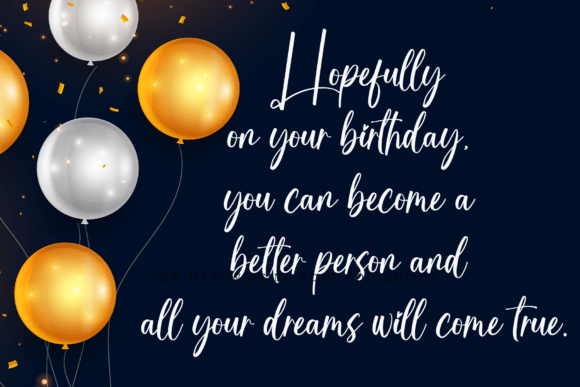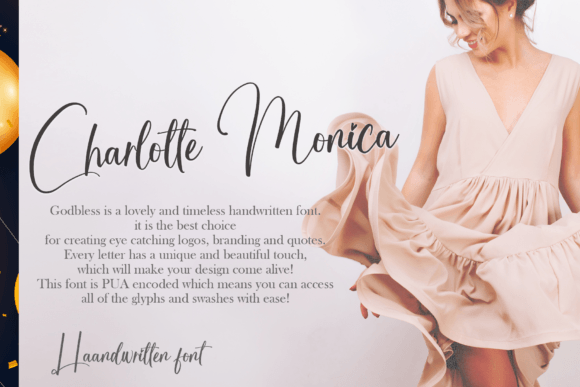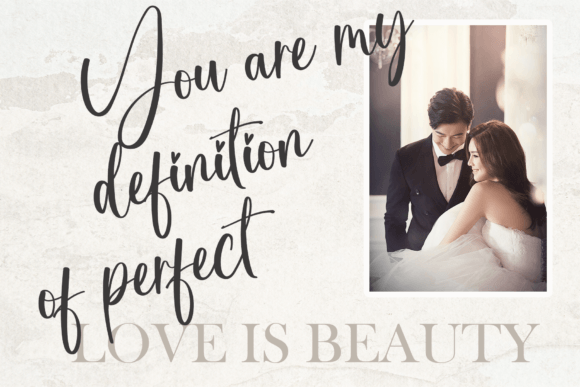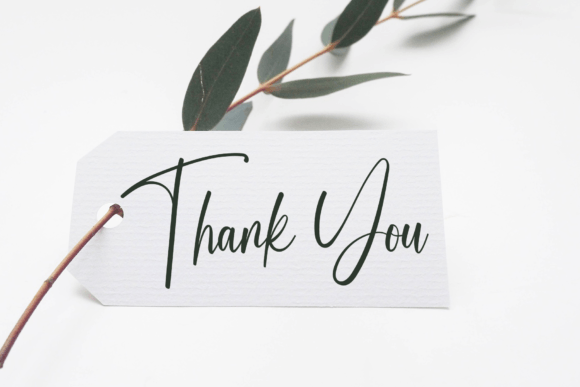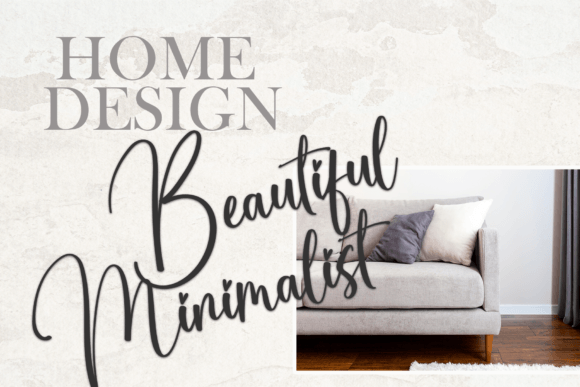
Godbless Font
About Godbless Font
“Godbless” is a slender and exquisitely crafted handwritten font that radiates elegance and grace. Its delicate and joyful demeanor makes it the perfect choice for enhancing the aesthetics of your creative projects, particularly those requiring a romantic and personalized touch, such as wedding invitations and cards.
The charm of “Godbless” lies in its refined, handcrafted appearance. Each letter is meticulously designed to exude a sense of sophistication and authenticity. Whether you’re creating a wedding invitation for a dreamy celebration or crafting a heartfelt greeting card for a loved one, this font adds a touch of refined romance to your words.
Picture “Godbless” adorning the cover of a wedding invitation, where the couple’s names are elegantly scripted in this font, setting the stage for a beautiful and unforgettable celebration of love. Alternatively, envision a heartfelt message in “Godbless” on a greeting card, conveying your emotions with a personal and intimate touch.
Moreover, “Godbless” offers versatility and readability, ensuring that your text remains clear and legible, even in intricate or ornate designs. This quality is essential when expressing heartfelt sentiments or sharing important information in your designs.
In summary, “Godbless” is more than just a font; it’s a tool that elevates your creative projects to new heights of elegance and personalization. Its slender and delicate appearance adds a touch of refined romance, making it the perfect choice for wedding invitations, cards, and any design that requires a heartfelt, personalized flourish. With “Godbless” at your disposal, you have the means to infuse your work with a sense of beauty and charm that leaves a lasting impression.